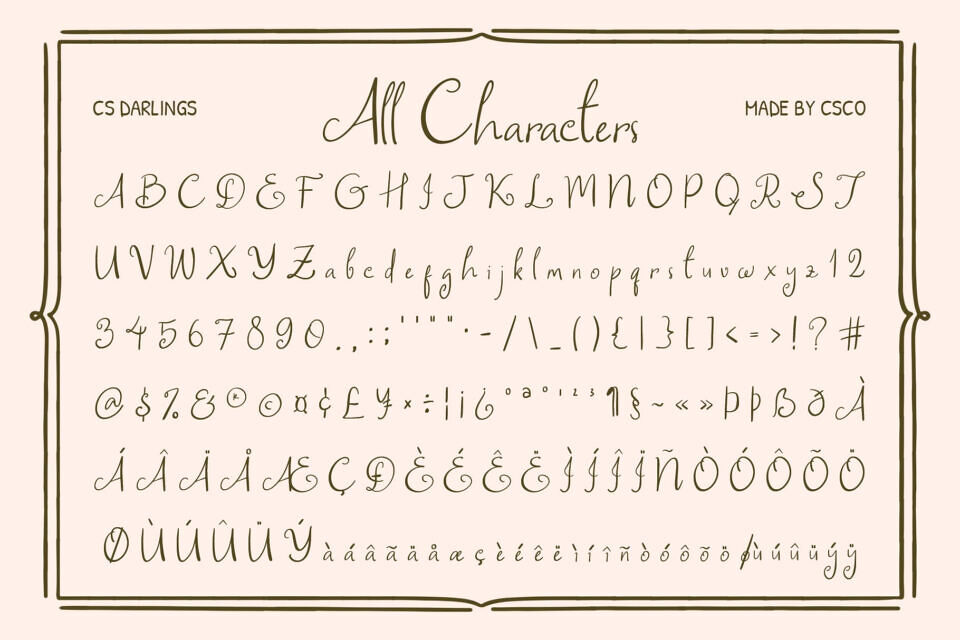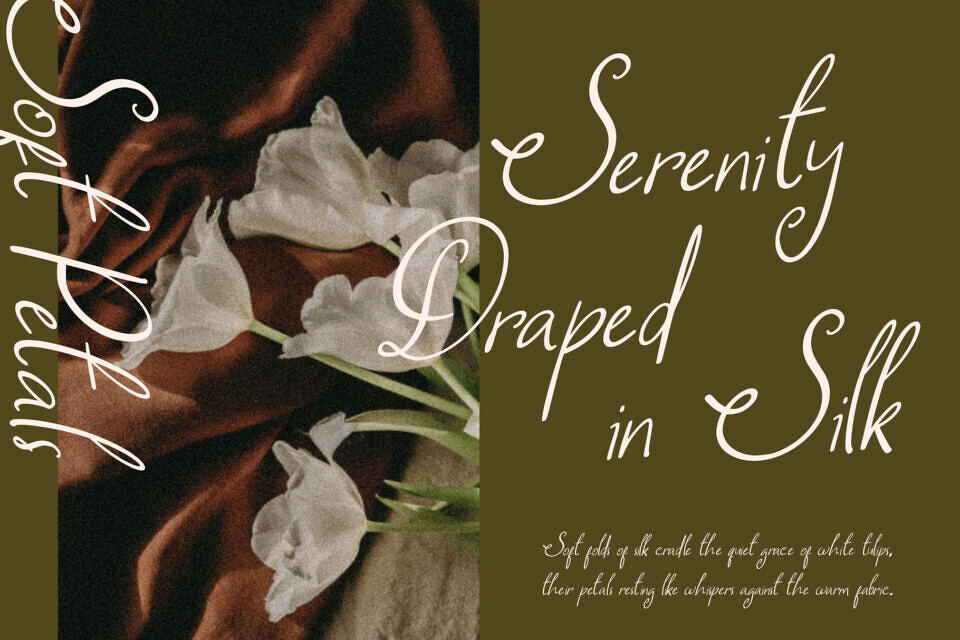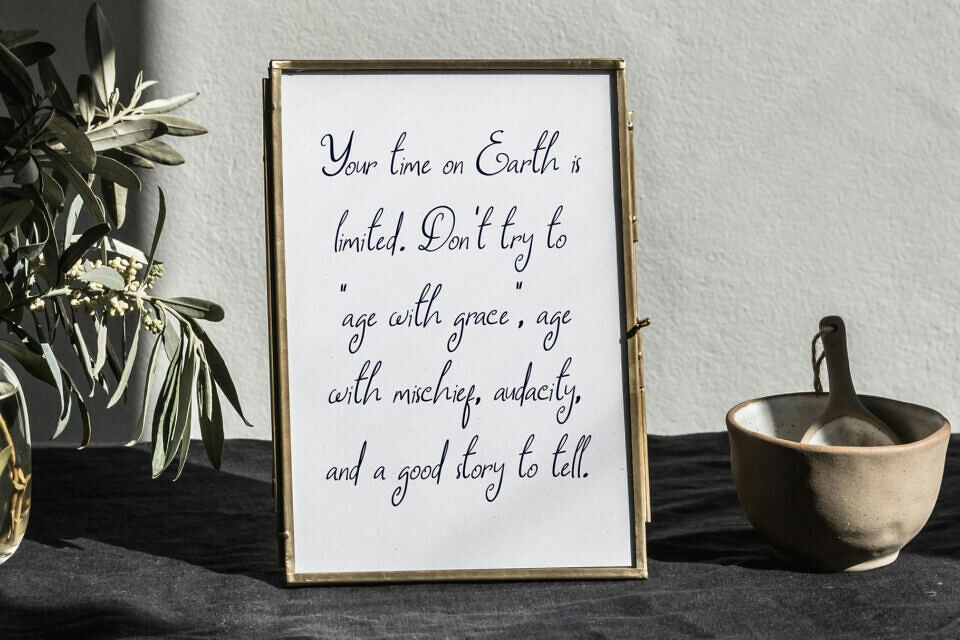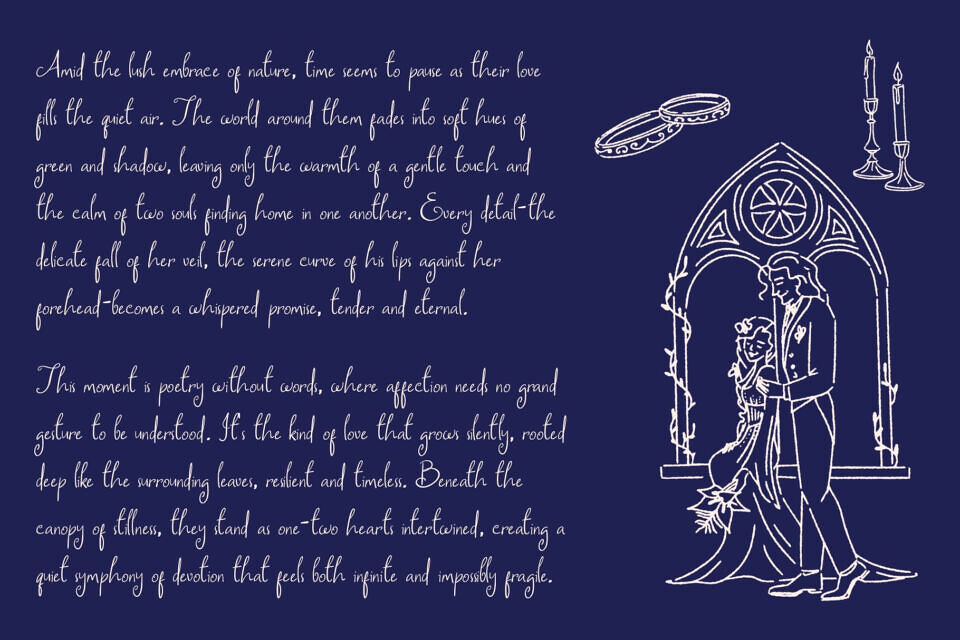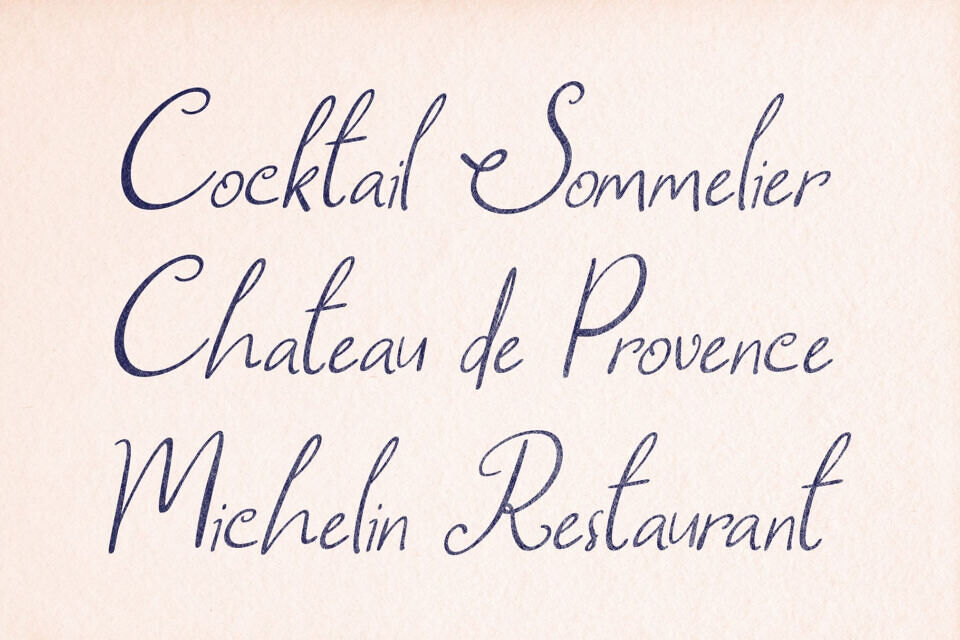
Cs Darlings Font
CS Darlings is a graceful handwritten script font that blends refined elegance with whimsical charm. Every stroke flows naturally, capturing beauty through fluid motion and delicate detail. Designed to express warmth and intimacy, its smooth curves create a romantic, inviting tone.
Perfect for wedding invitations, branding, and celebration designs, this font evokes sophistication with a touch of magic. CS Darlings enhances any creative project seeking heartfelt expression, timeless beauty, and an enchanting handwritten aesthetic that feels both personal and poetic.